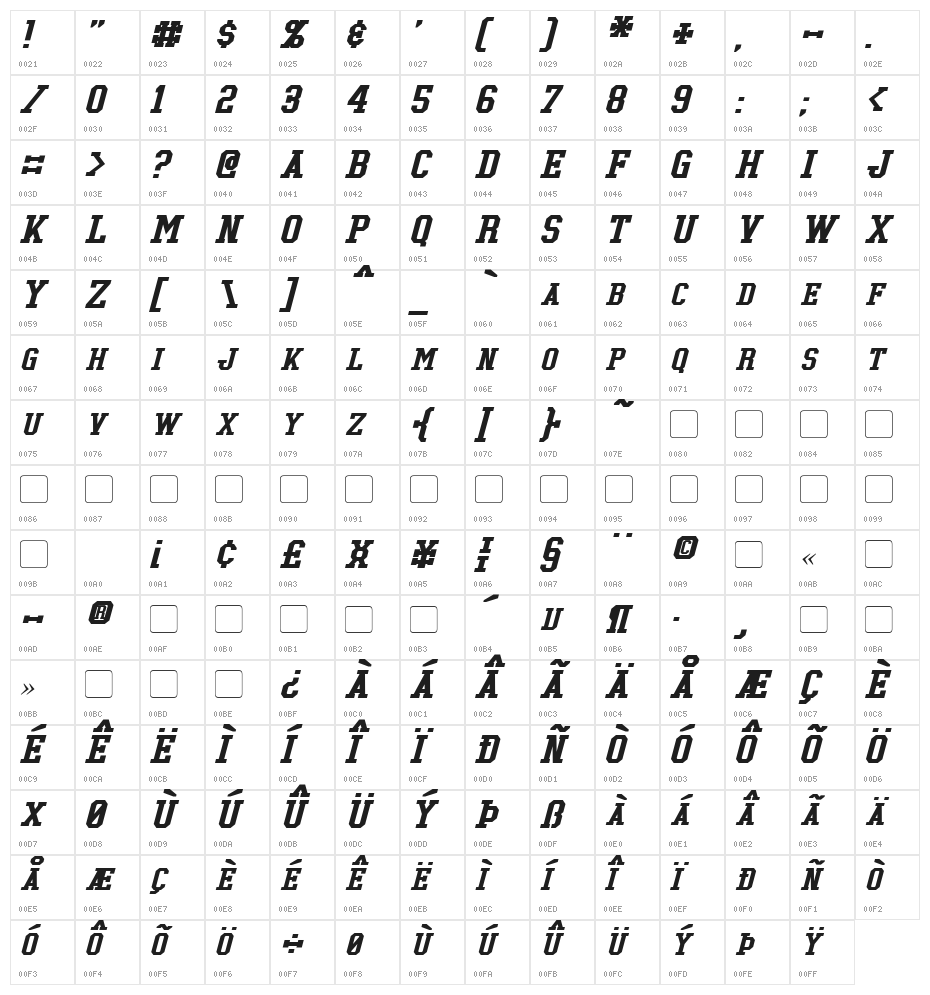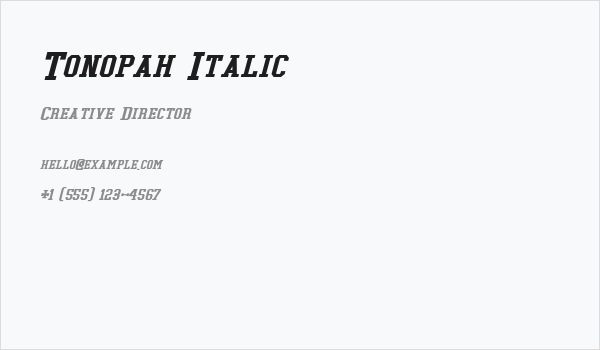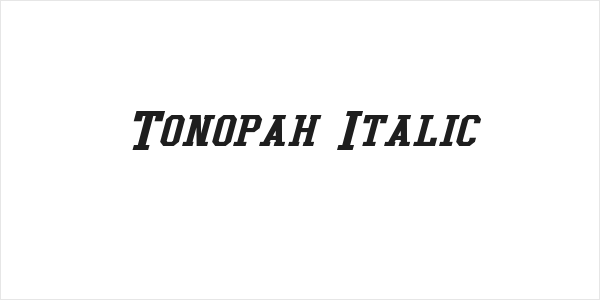
Tonopah Italic Font
Tonopah Italic Description
This is a bold, italicized font with a strong, dynamic presence. The characters are slightly slanted, giving a sense of motion and energy. The strokes are thick and consistent, providing a robust and impactful appearance. The design features sharp angles and clean lines, contributing to its modern and assertive style. The uppercase and lowercase letters maintain uniformity in width, ensuring readability while adding a touch of elegance. The numerals and special characters are designed to match the overall aesthetic, making them suitable for various applications. This font is ideal for projects that require a bold statement, such as headlines, posters, and branding materials.
| Proposed Projects | Ideal for headlines, posters, branding, and any project requiring a bold statement. |